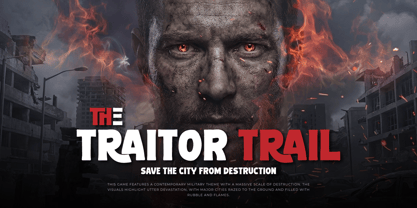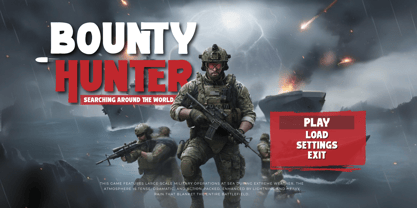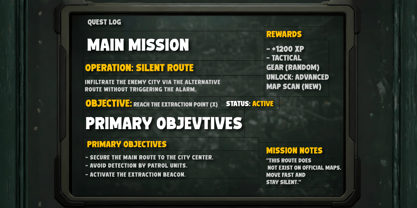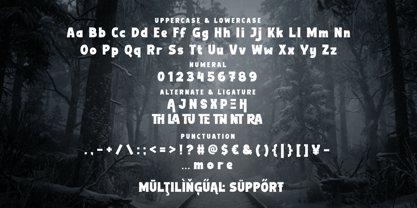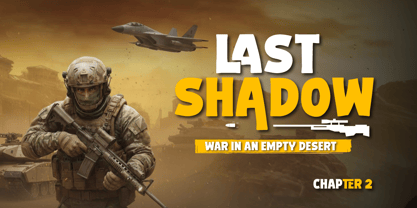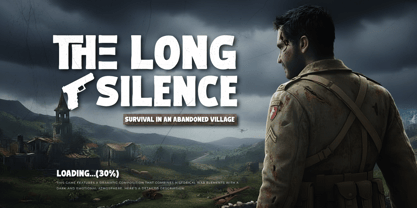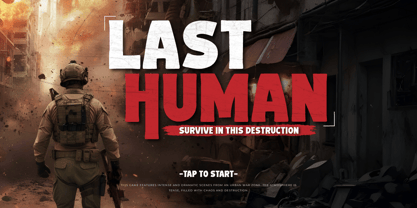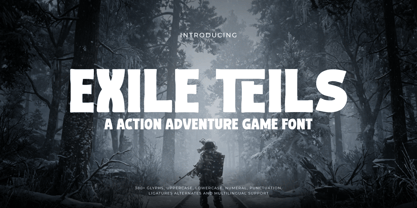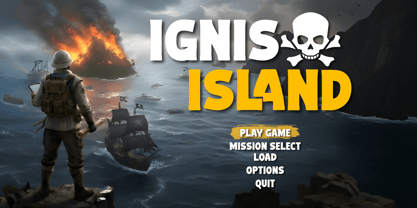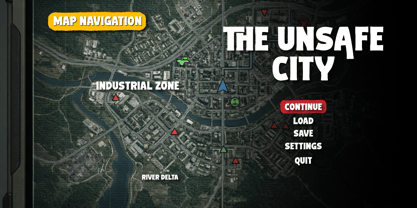
Exile Teils is a high-octane action-adventure game font engineered to deliver an authoritative, tactical, and deeply immersive atmosphere. Heavily inspired by modern warfare, survival missions, and frontline combat scenarios, this typeface captures the grit and determination required in high-stakes exploration. With its solid structure and sharp, precision-cut character shapes, Exile Teils ensures that every word commands attention, making it the definitive choice for projects that demand a sense of power and military-grade professionalism.
Designed with versatility at its core, this font excels far beyond simple headlines. As demonstrated in the previews, Exile Teils is a powerhouse for Game UI/UX design, seamlessly integrating into complex mission interfaces, tactical quest logs, and interactive map navigation systems. Its exceptional legibility makes it perfect for cinematic posters, historical war narratives, and branding that requires a rugged, heroic tone. Featuring an extensive library of over 380+ glyphs, including unique alternates and ligatures, this font provides designers with the tools to create a truly bespoke visual identity for any action-oriented media.